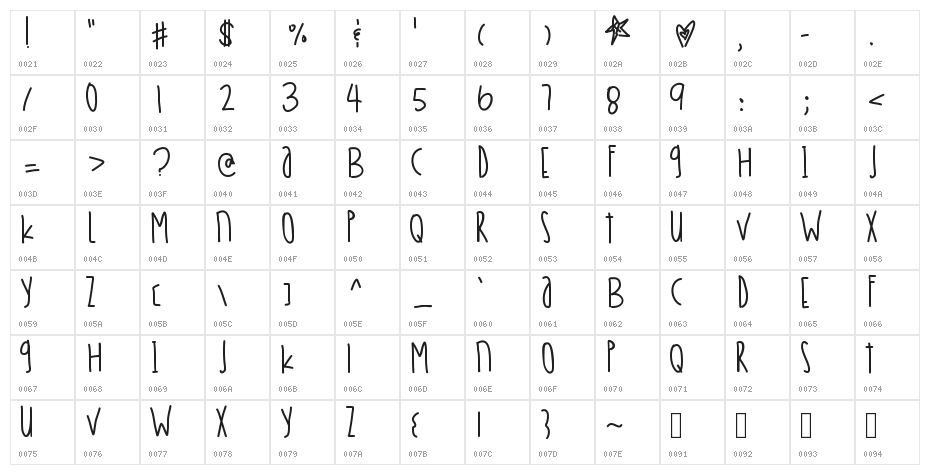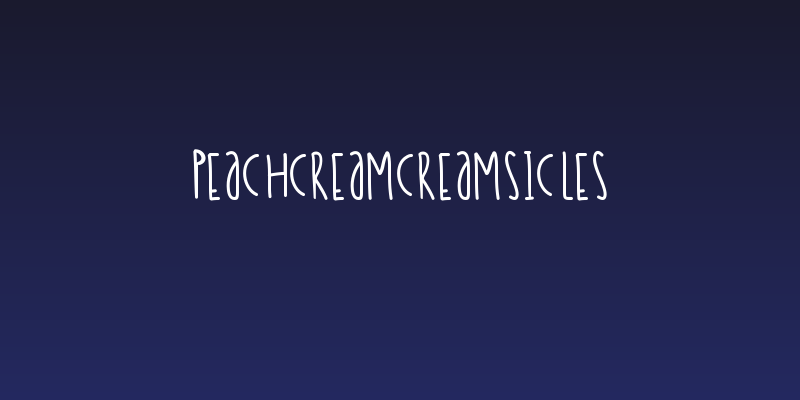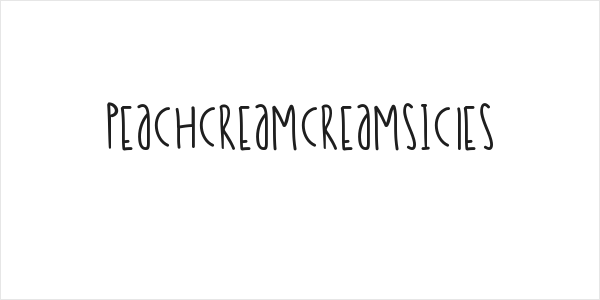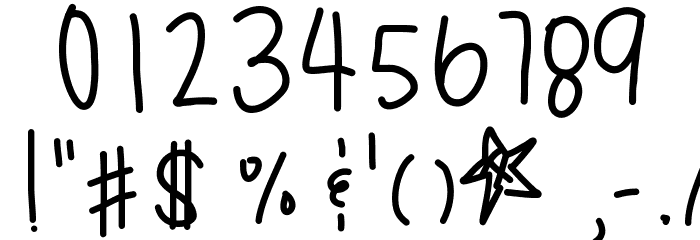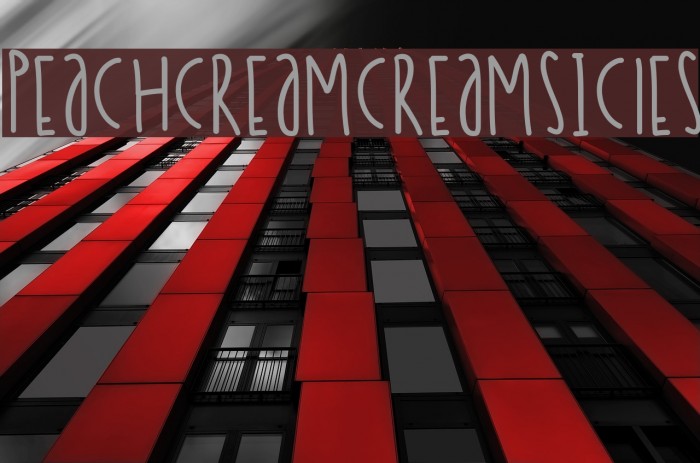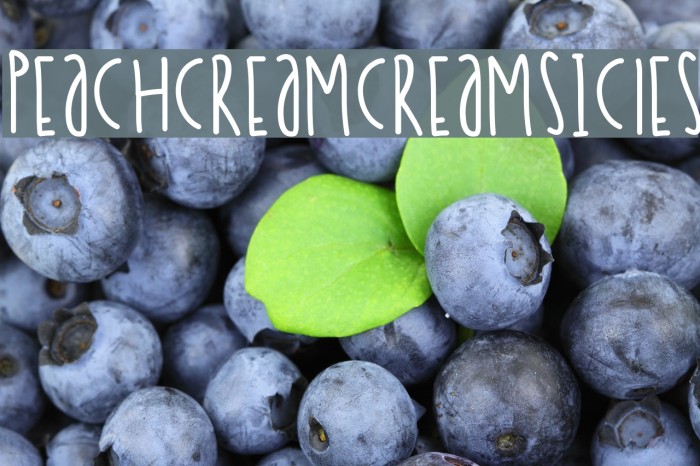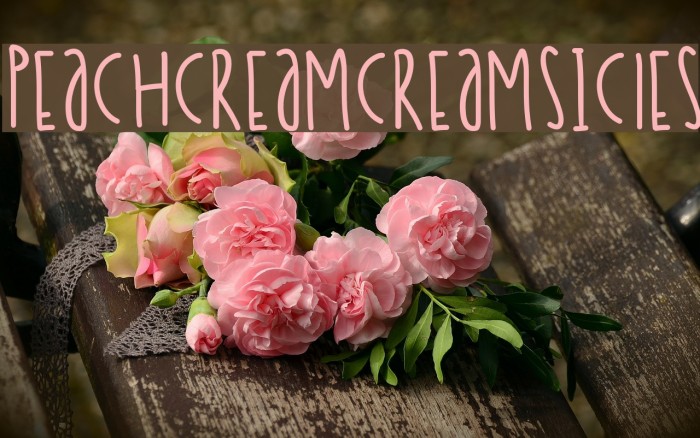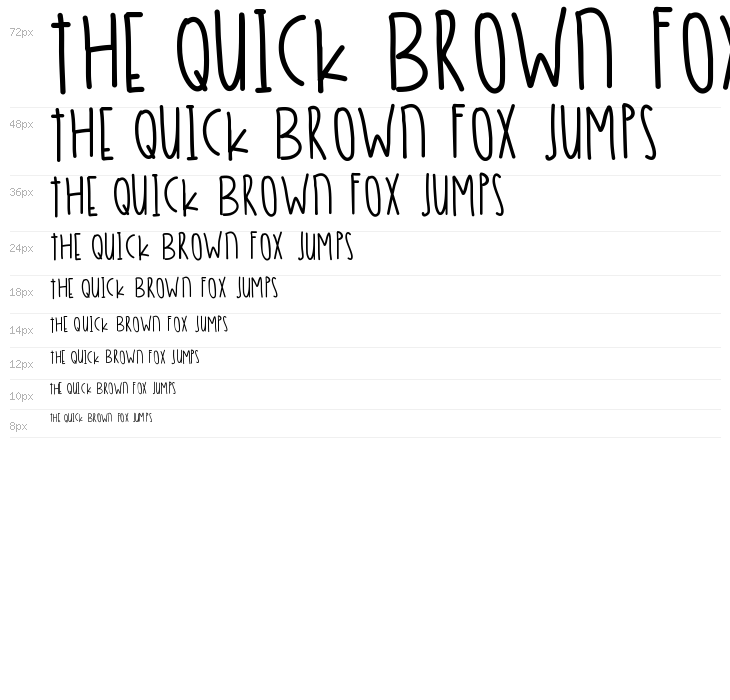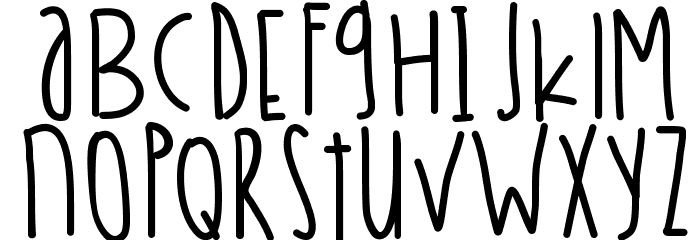
PeachCreamCreamsicles Font
PeachCreamCreamsicles Description
This playful and whimsical font features tall, narrow letters with a hand-drawn appearance. The characters are slightly irregular, adding a charming and informal touch. The uppercase and lowercase letters maintain a consistent style, with rounded edges and a casual flow. The numbers and special characters complement the alphabet with the same quirky and friendly design. This font exudes a sense of fun and creativity, making it ideal for projects that require a personal and approachable feel.
| Proposed Projects | Ideal for children's books, greeting cards, playful branding, and creative posters. |